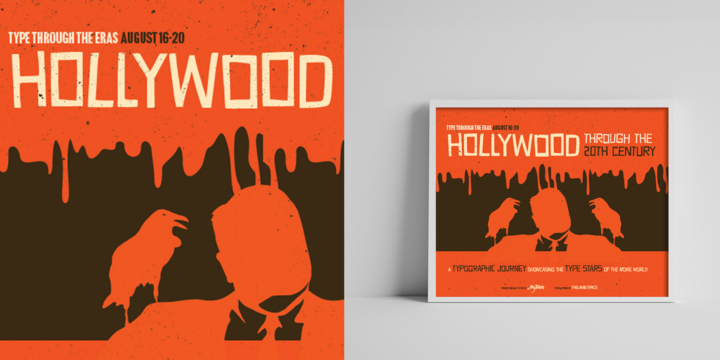
TTE Hollywood through the 20th century
Type Through The Eras
Welcome to our Type Through The Eras: Hollywood Through The Twentieth Century extravaganza! Tom Rickner from the Monotype Studio was inspired by his favorite movies as he curated this selection of fonts. Simon Lamb added his artistic flare and brought each font poster to life - can you guess the movie names?
A classic film needs an epic typeface. On set and on the big screen, details truly matter. While films move us and impact our worlds in many different ways, one major detail that’ll always scream out to us is the bold typography that is paired with them. These typefaces are unforgettable and are permanently stamped in our memories just as the films themselves. Light up the box office with this hot collection of fonts and take a ride with us on a journey down the walk of fame. Prepare yourself for five days full of discounts of up to 60% OFF! Lights, Camera, FONTS!